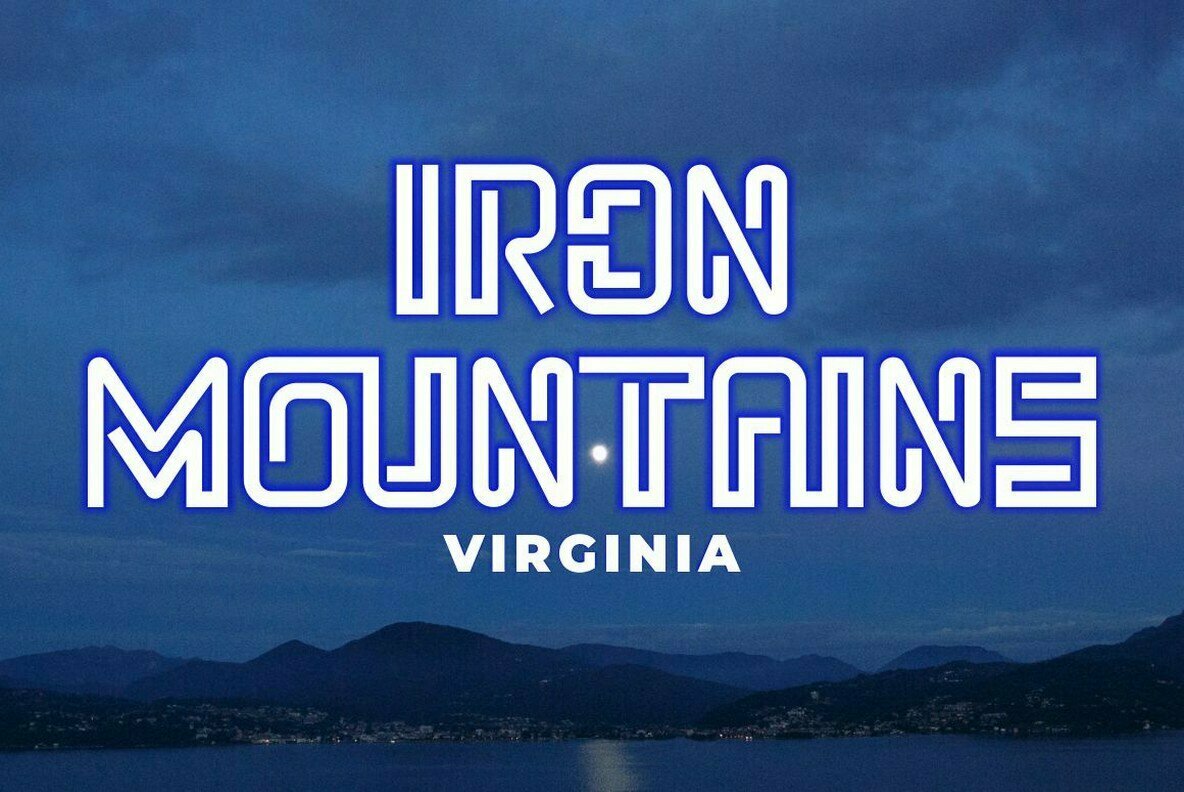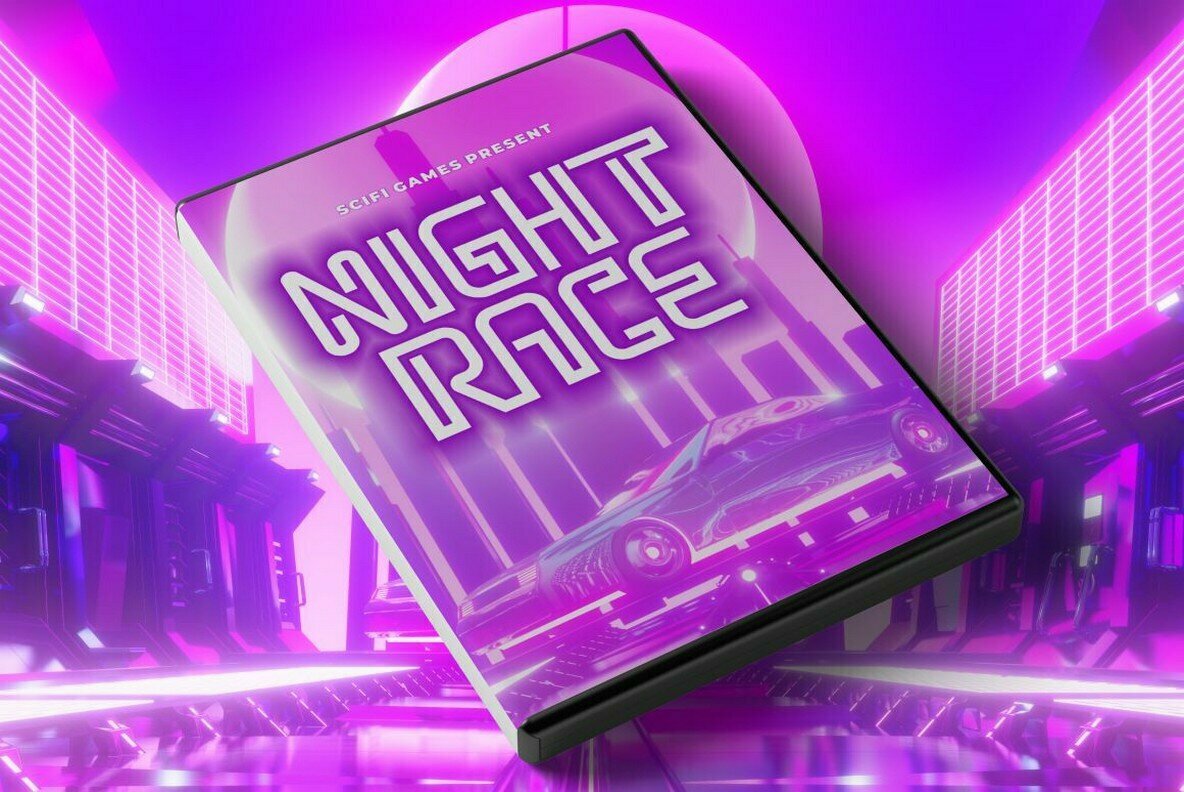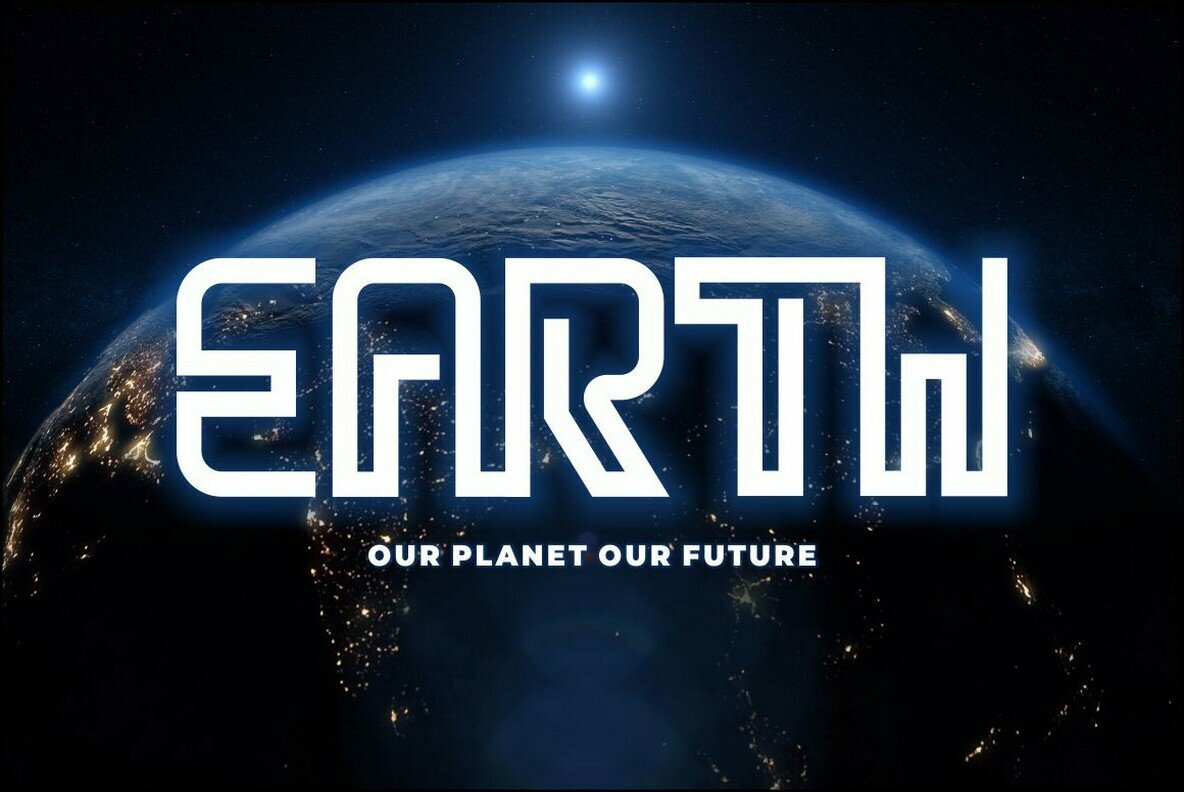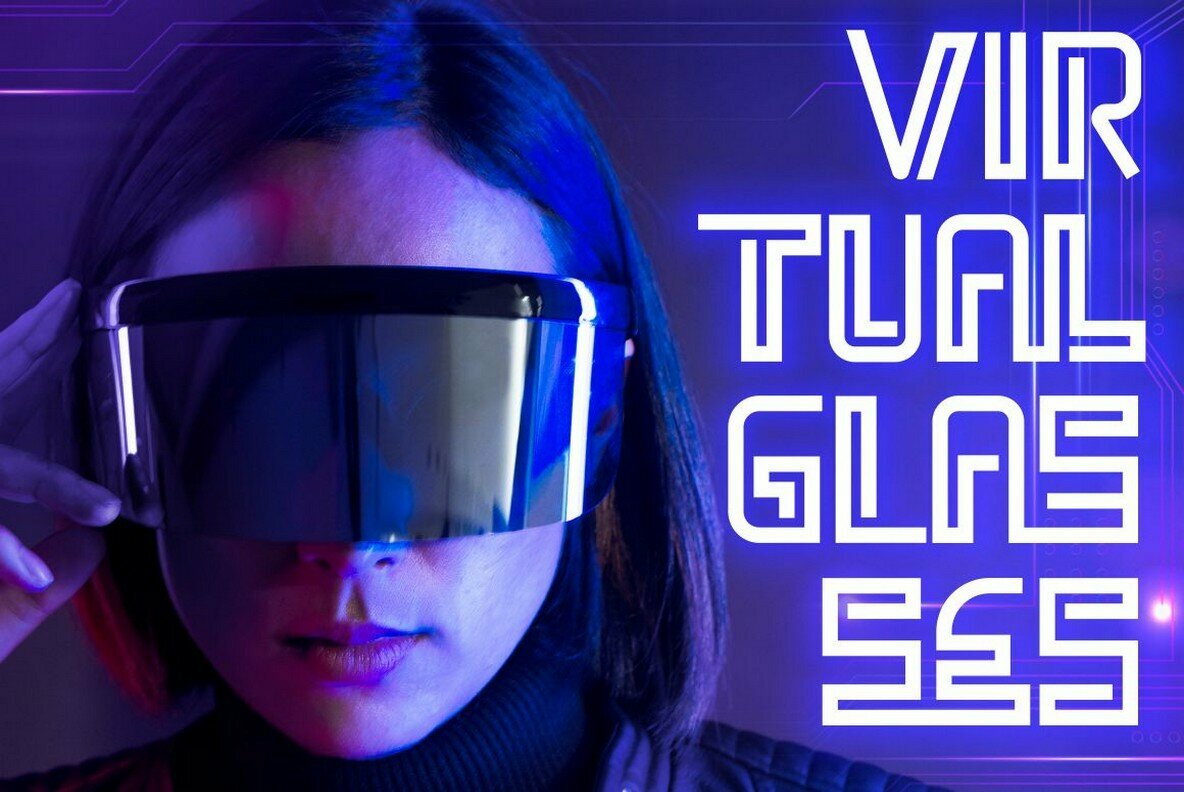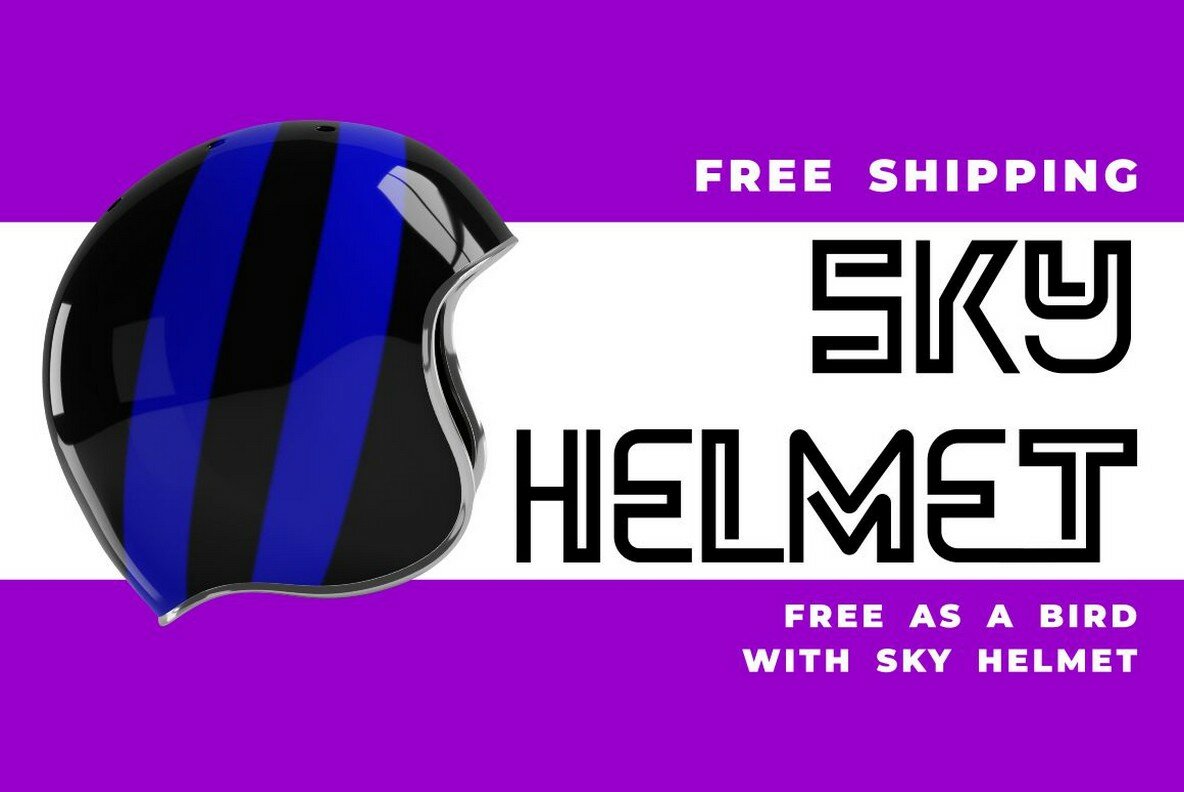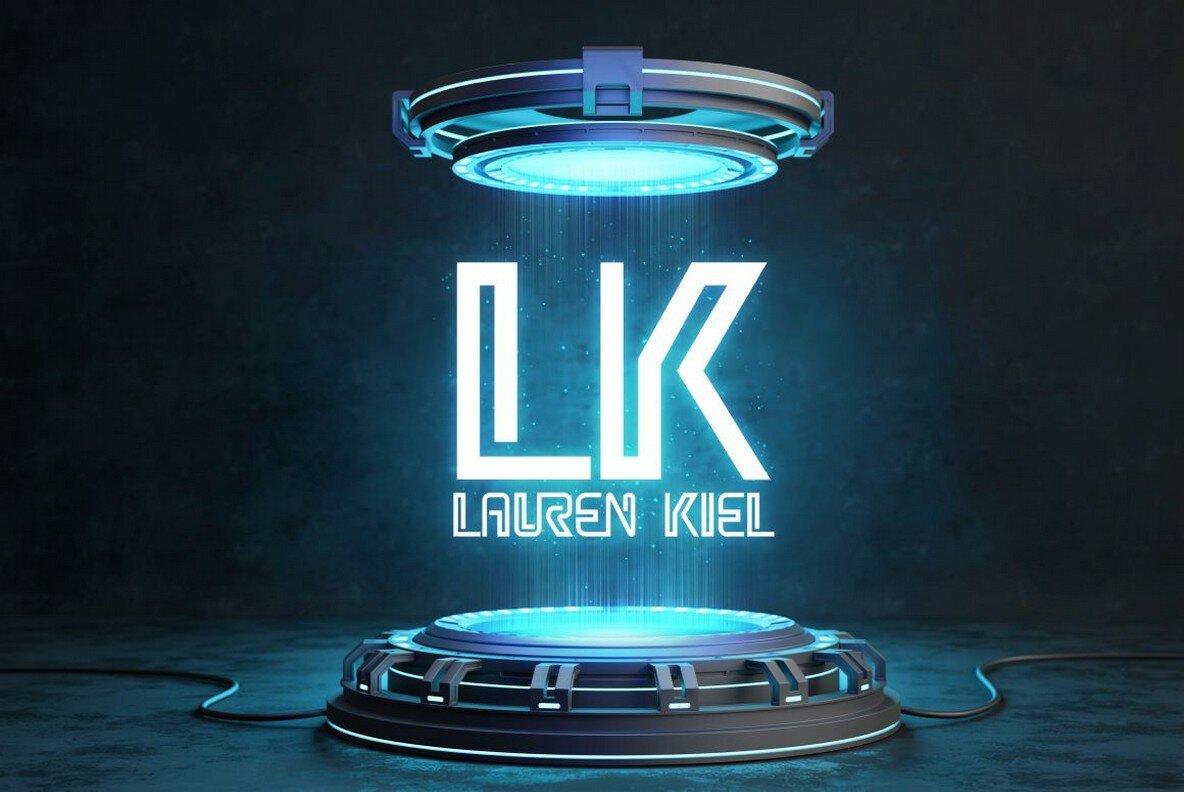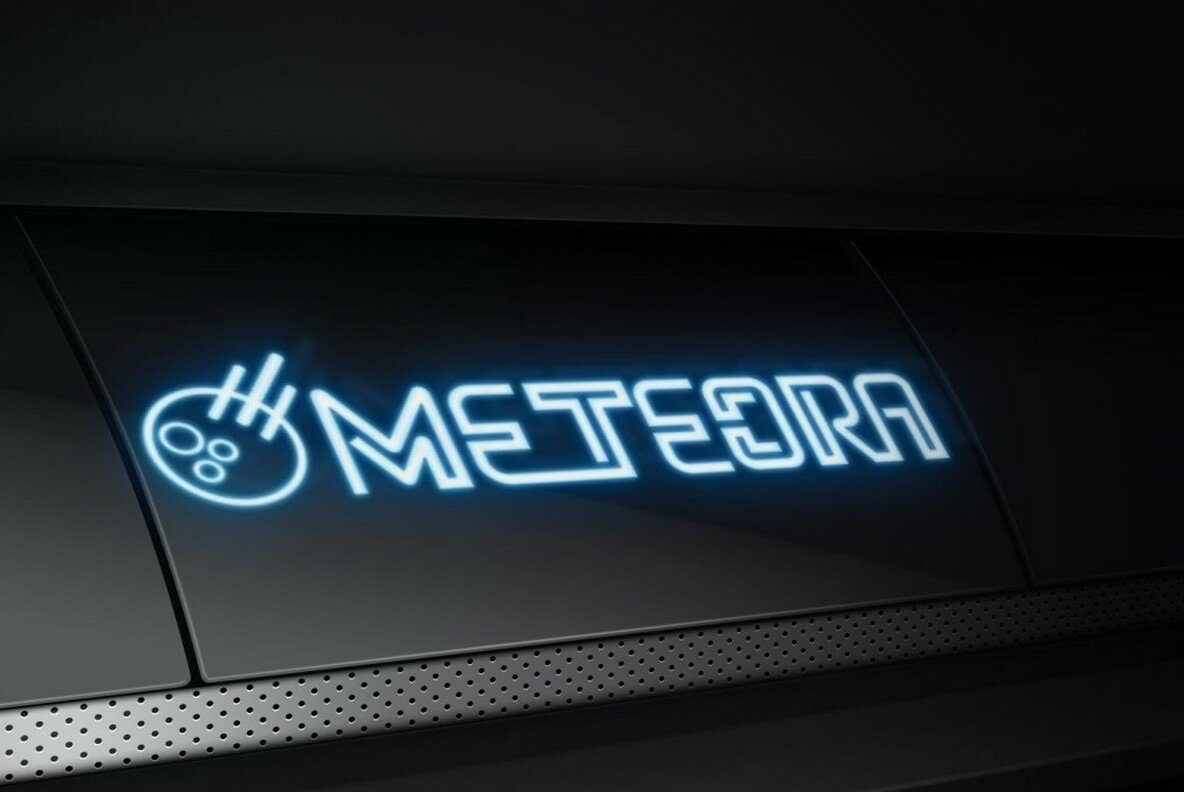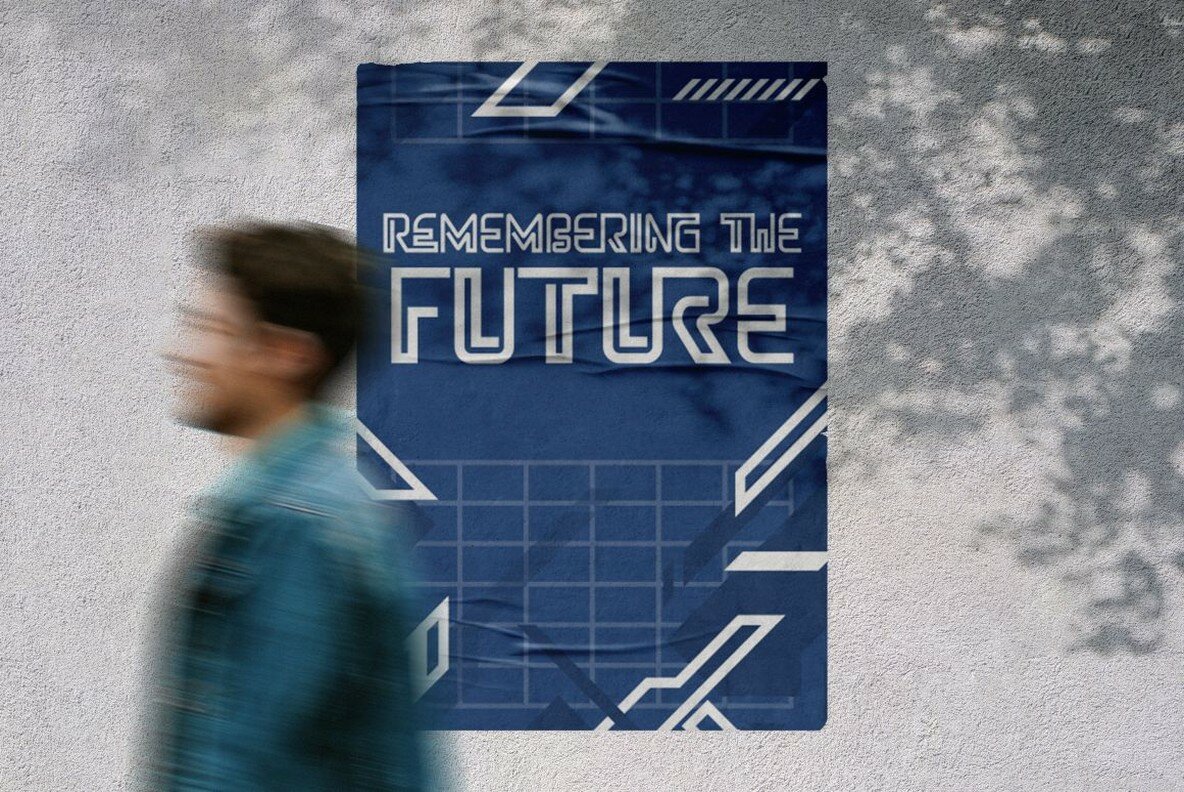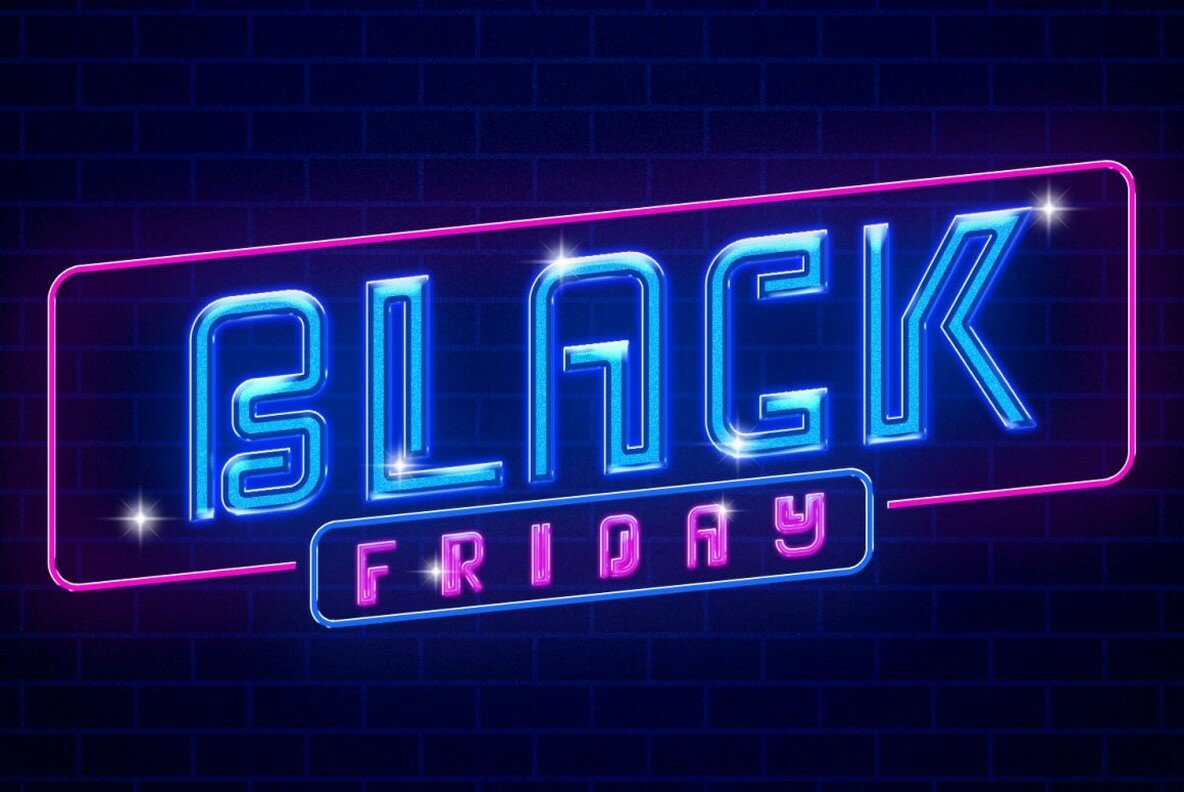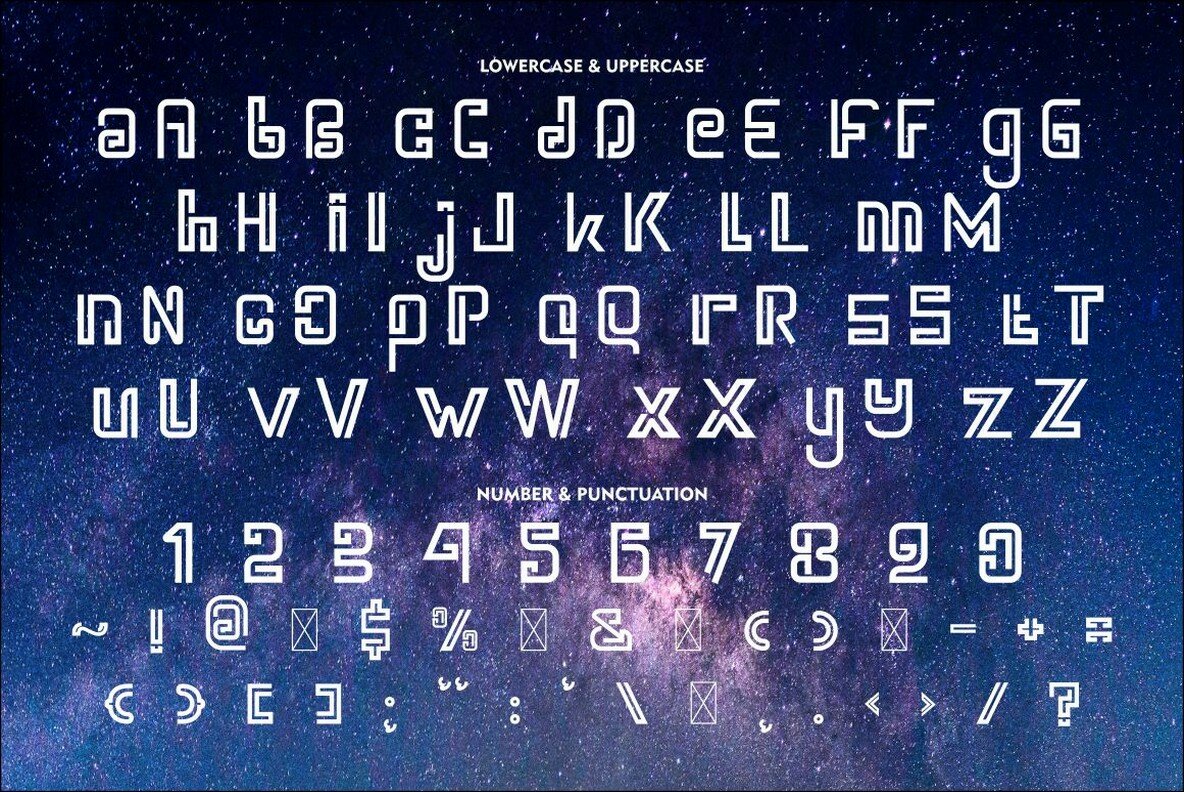
Planet Adventure Font
Planet Adventure
Planet Adventure is a visually striking font that merges the aesthetic of techno circuit boards with the boldness of sci-fi typography. This font is designed for a range of display purposes, ensuring it stands out across various mediums. Features:Planet Adventure: Sci-Fi Font Inspired by Techno Circuitry